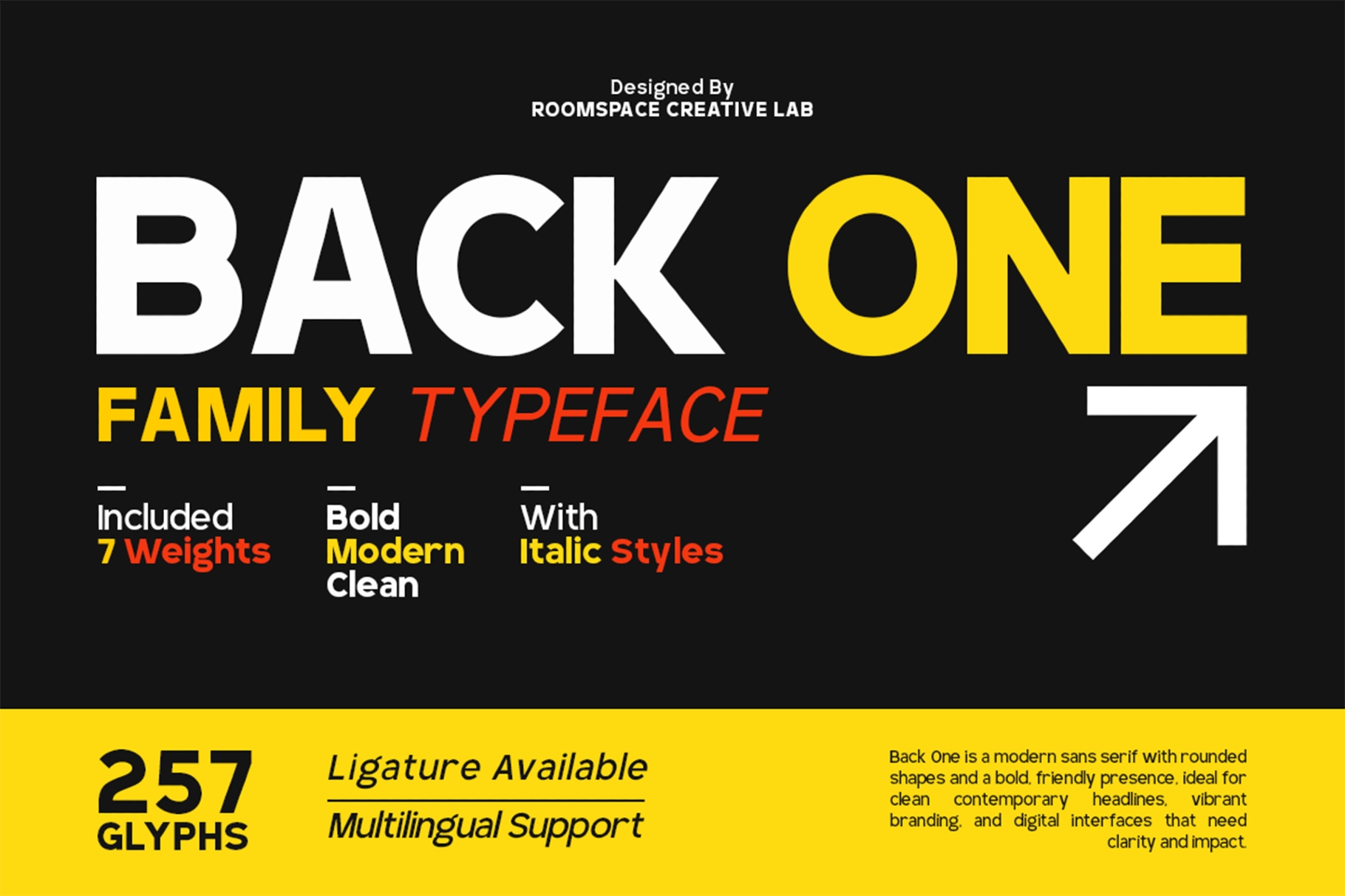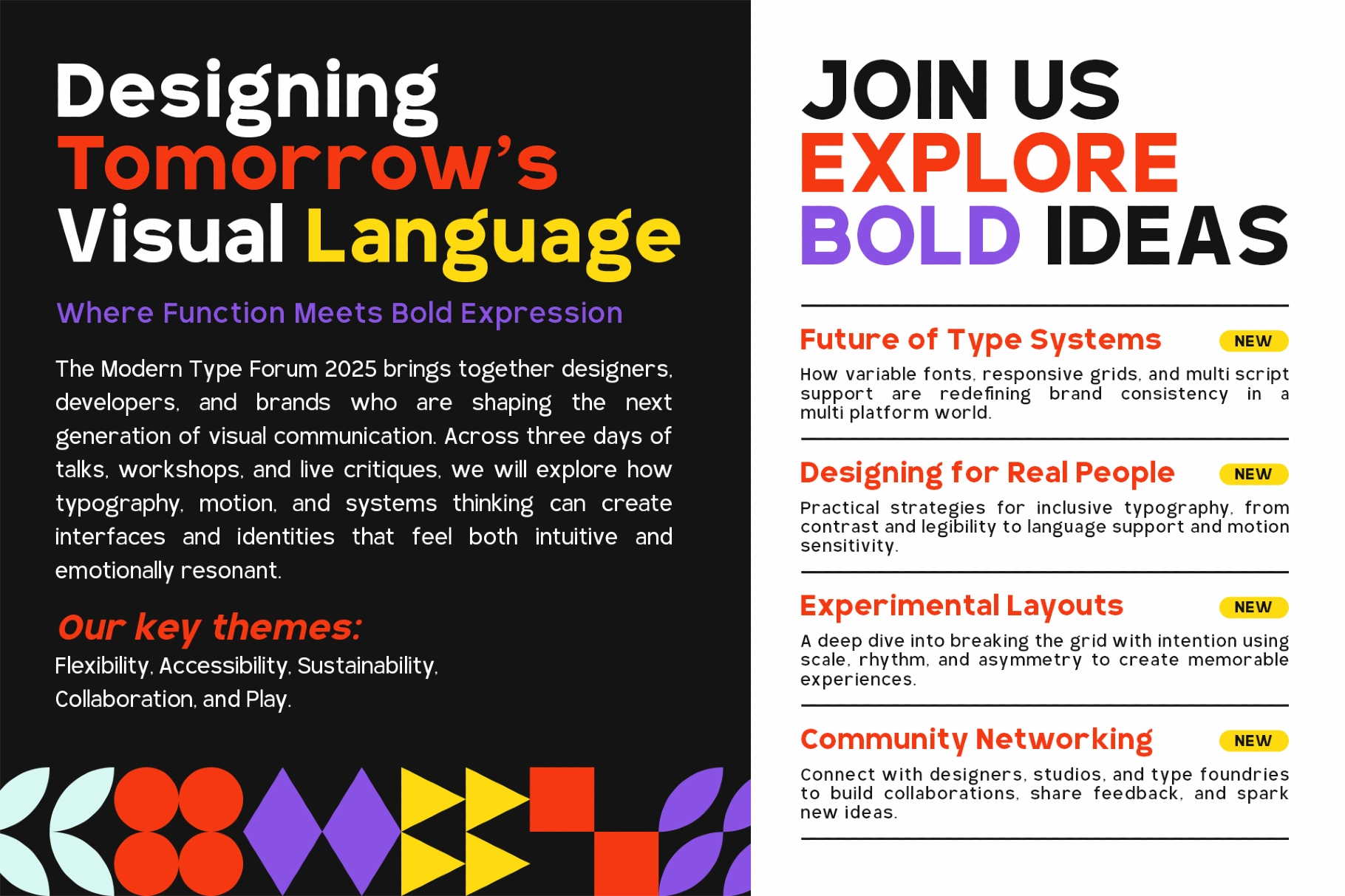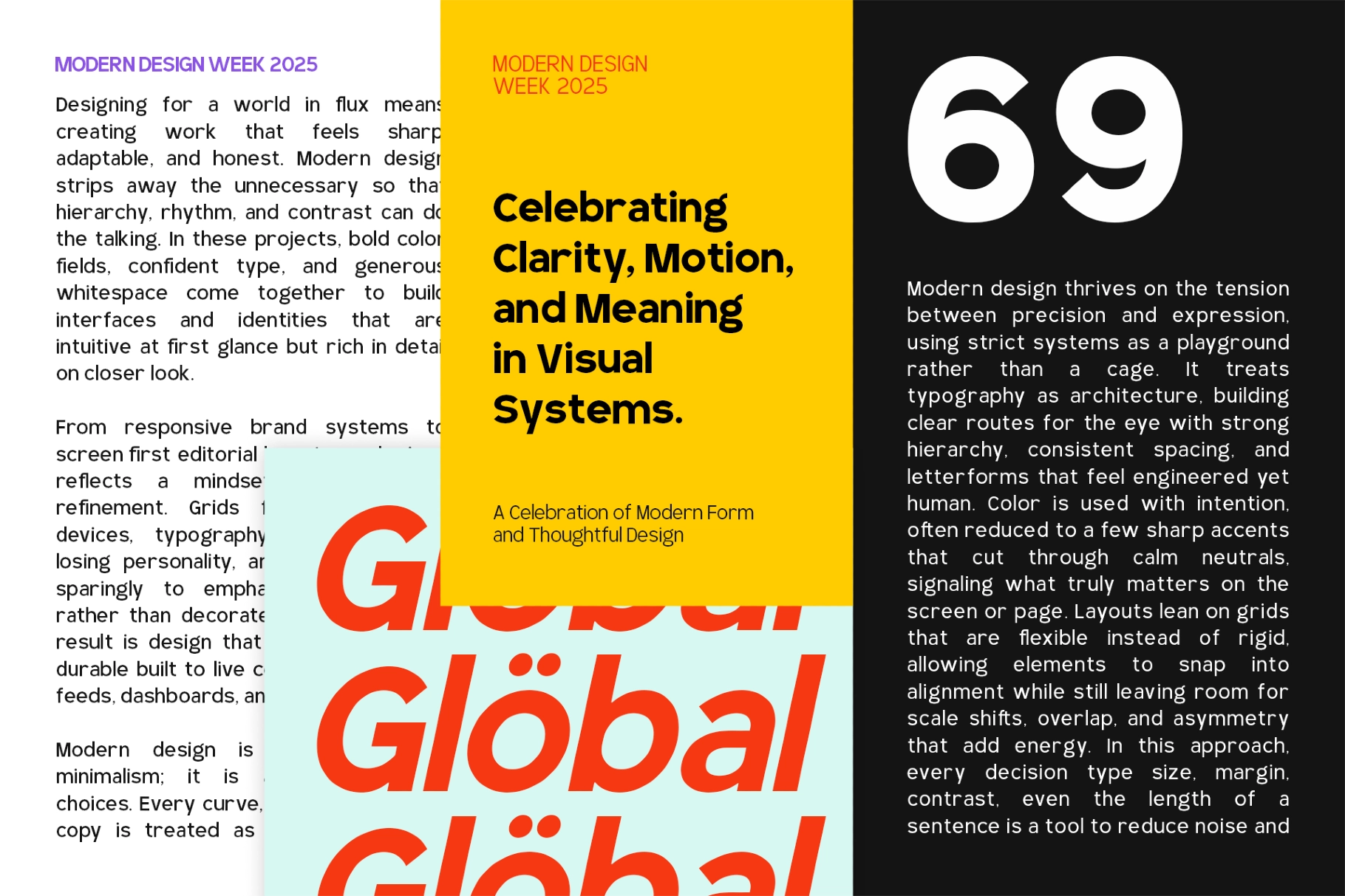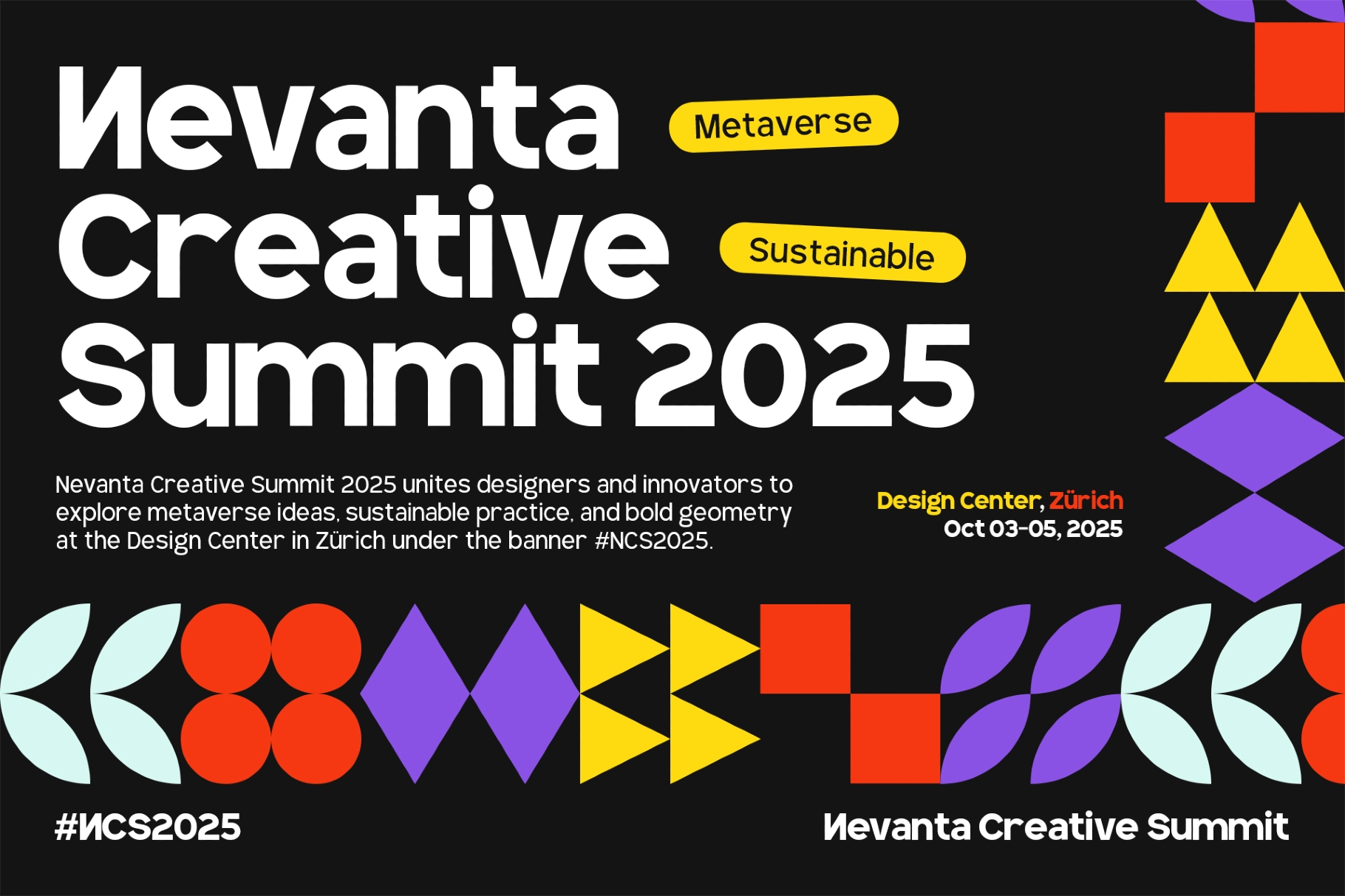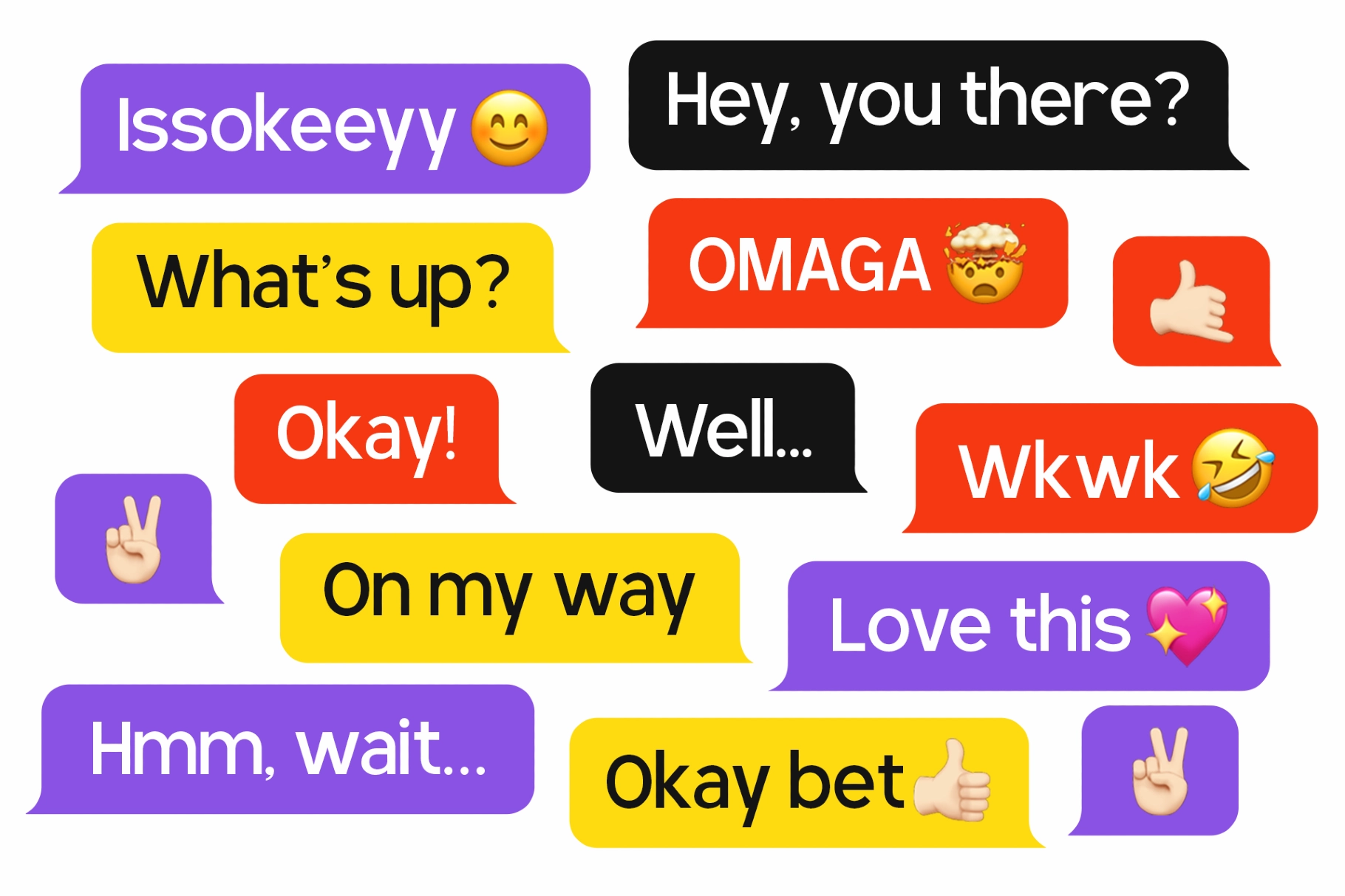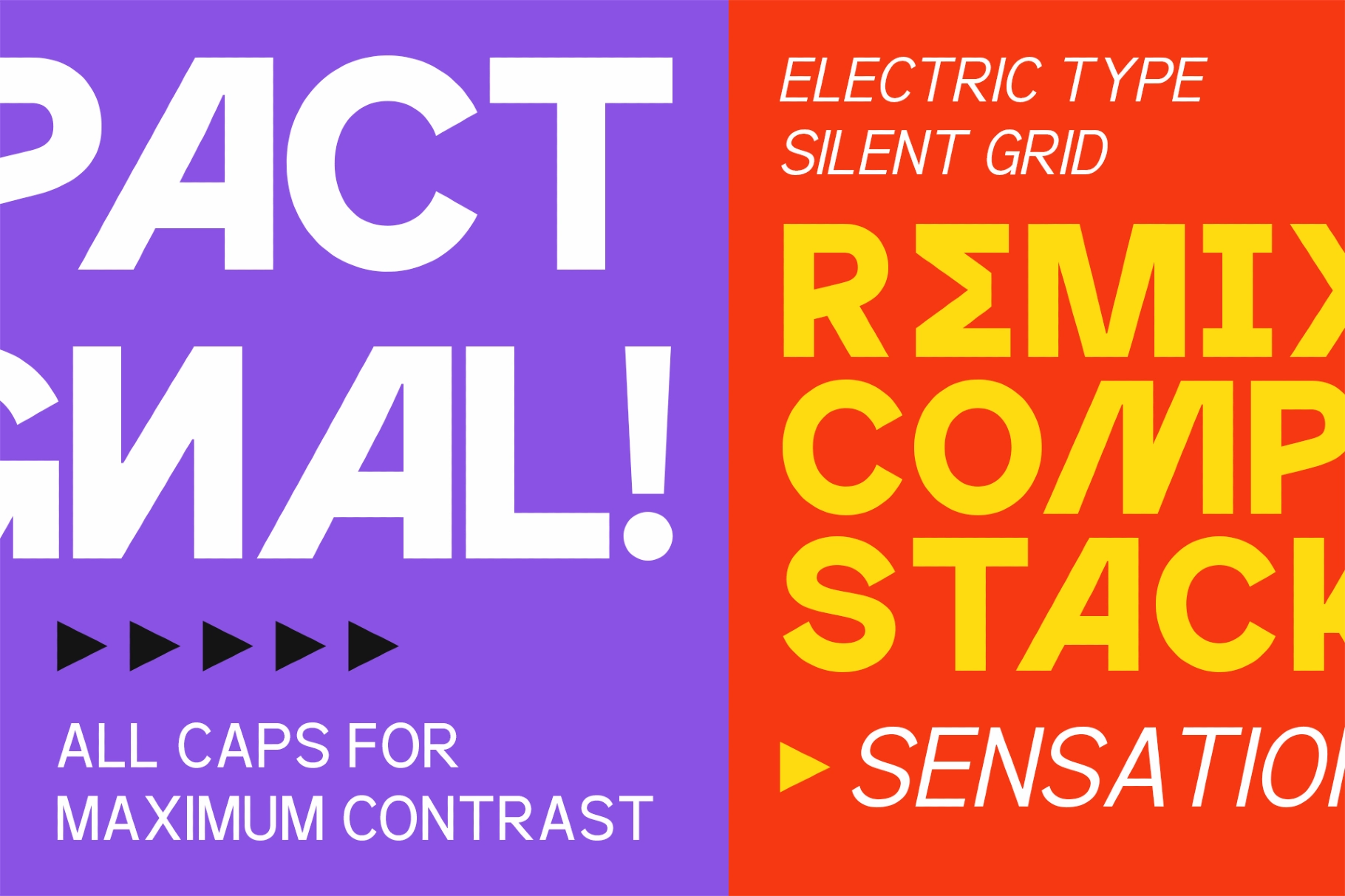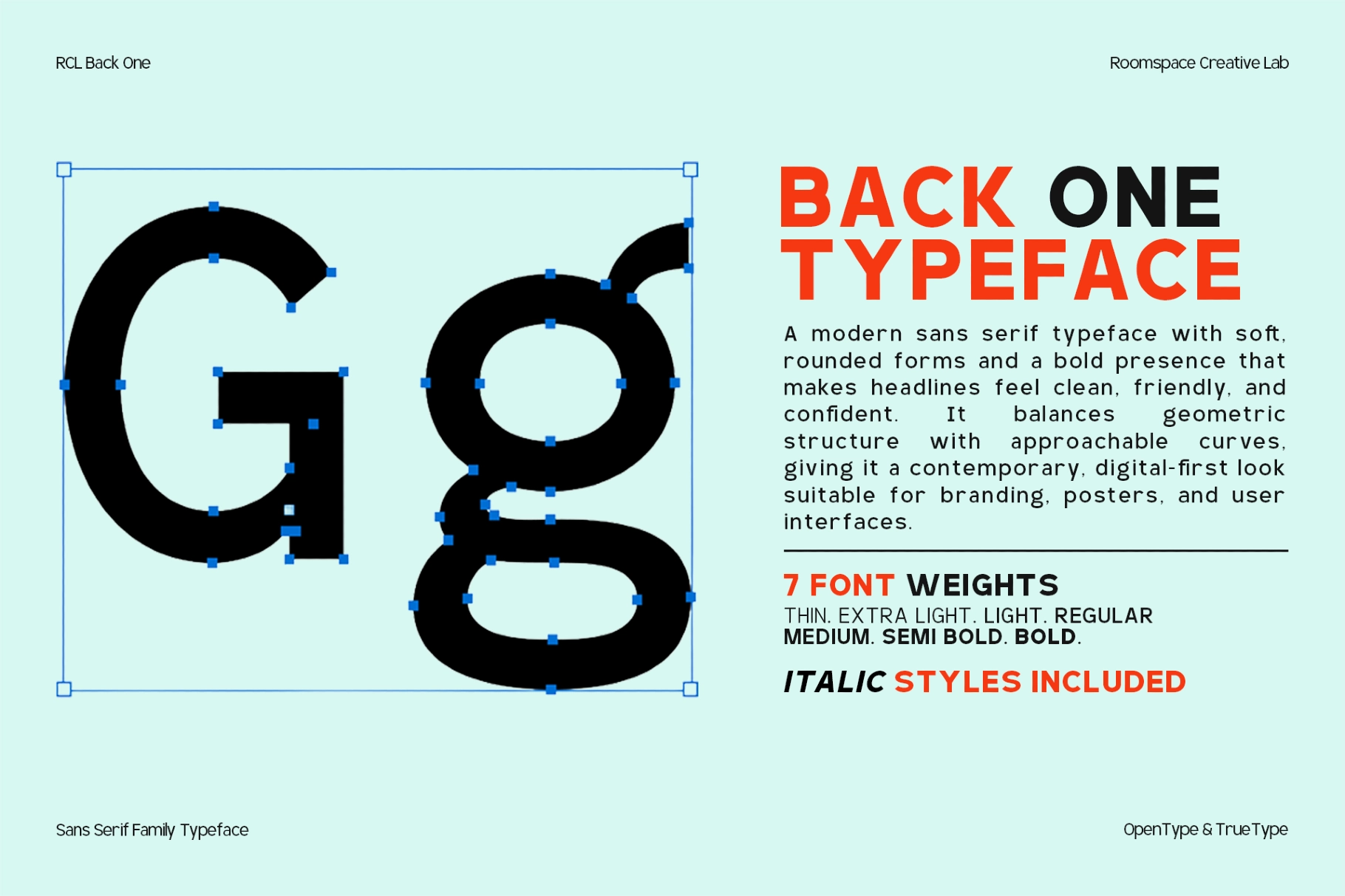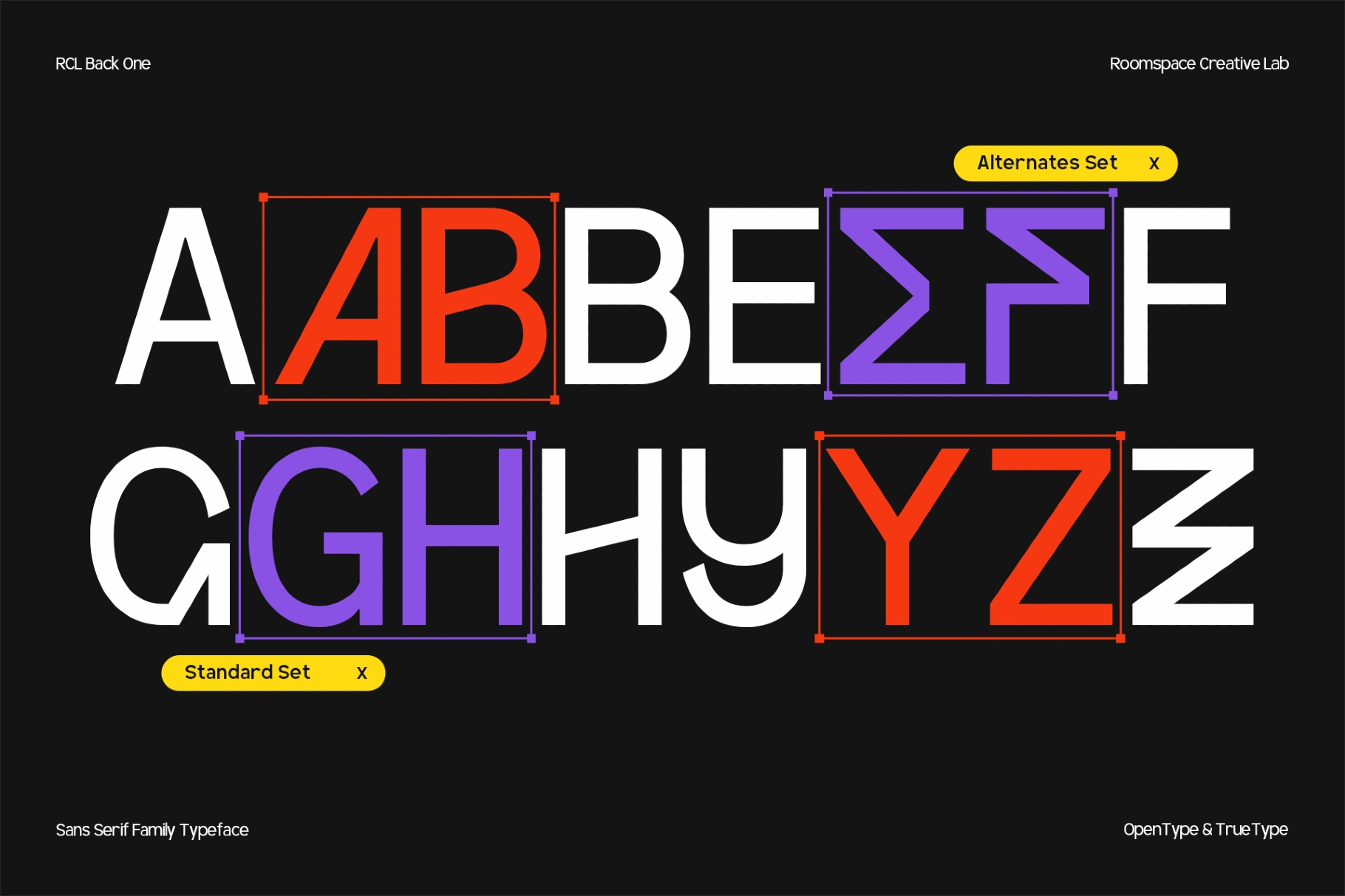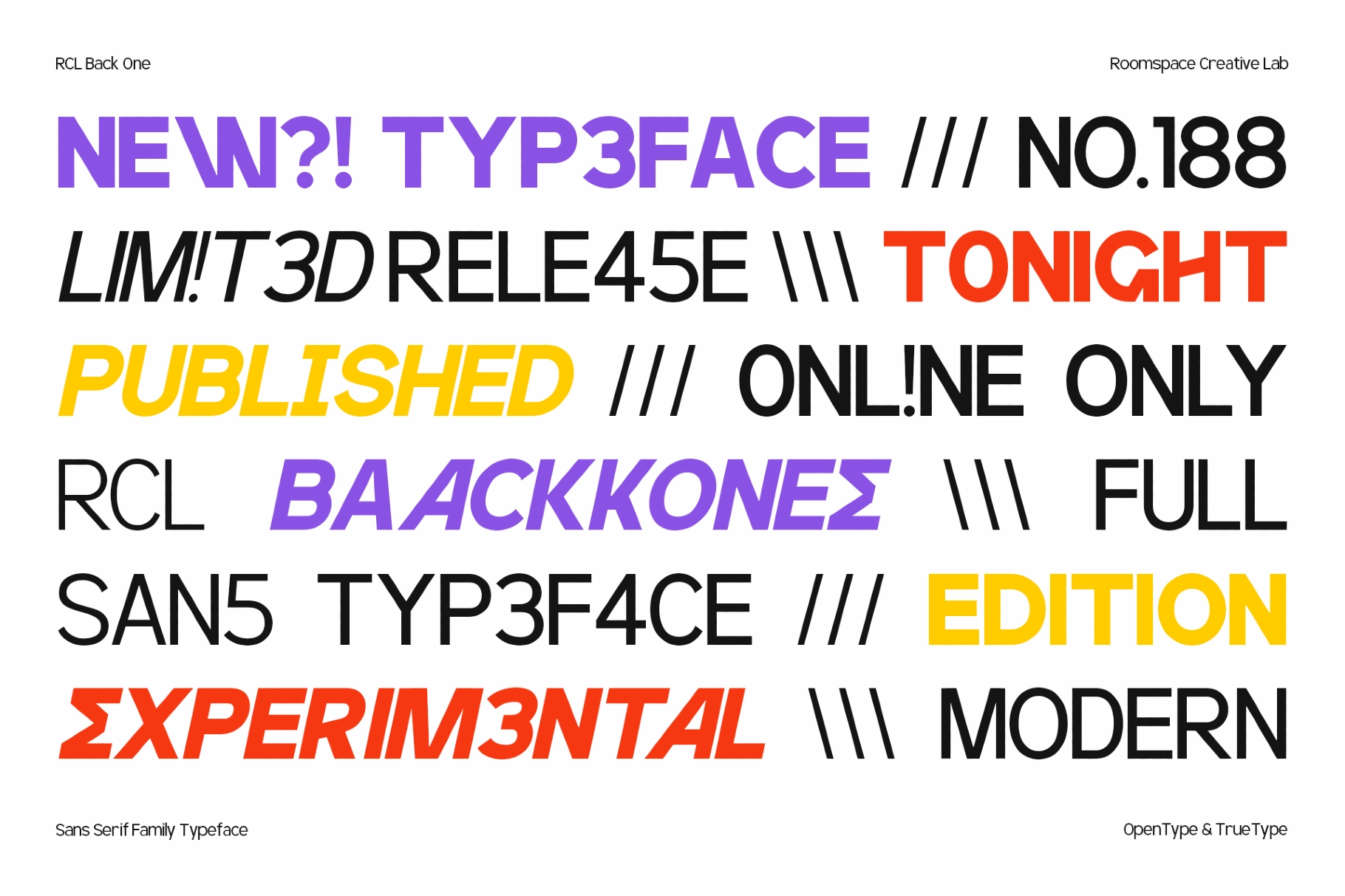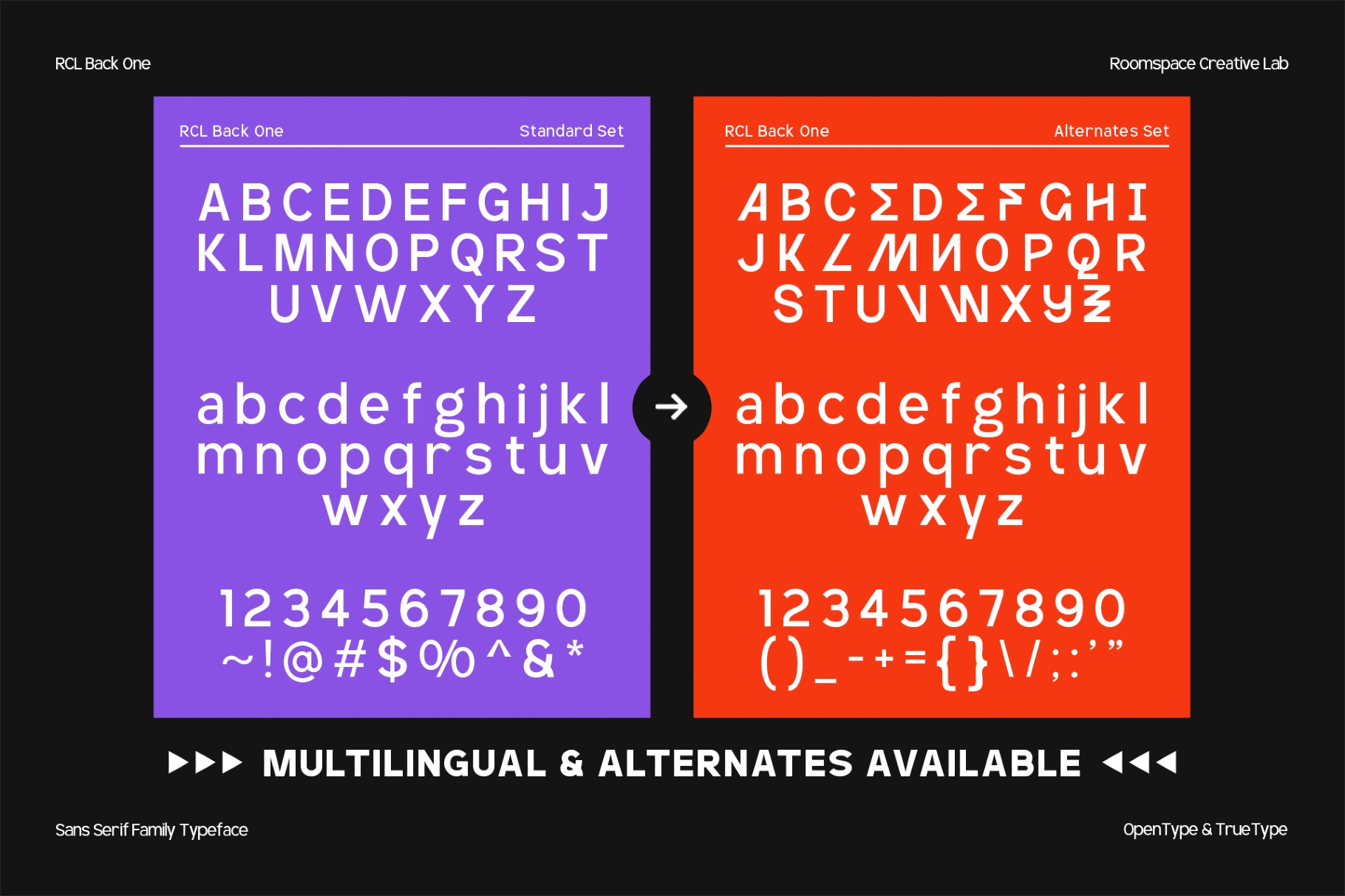
RCL BackOne – Bold Modern Sans Font
This sans serif family has wide proportions, rounded forms, clean geometry, and a strong headline presence. Its bold shapes are friendly without going soft, with alternate characters adding a sharper graphic edge for layouts that need character as well as clarity.
Back One works well for brand identities, logos, event posters, app interfaces, website headers, packaging, social media graphics, editorial covers, startup campaigns, tech branding, signage, and presentation titles. The family includes multiple weights and italics, making it useful for both loud display work and structured text systems where consistency matters.
- 7 Weights: Thin to Bold
- 2 Style: Regular, Italic
- Uppercase & lowercase